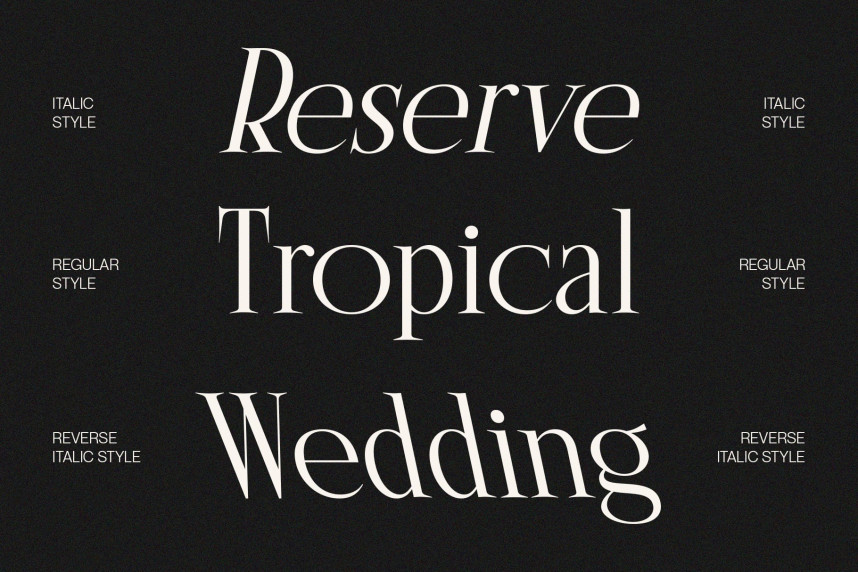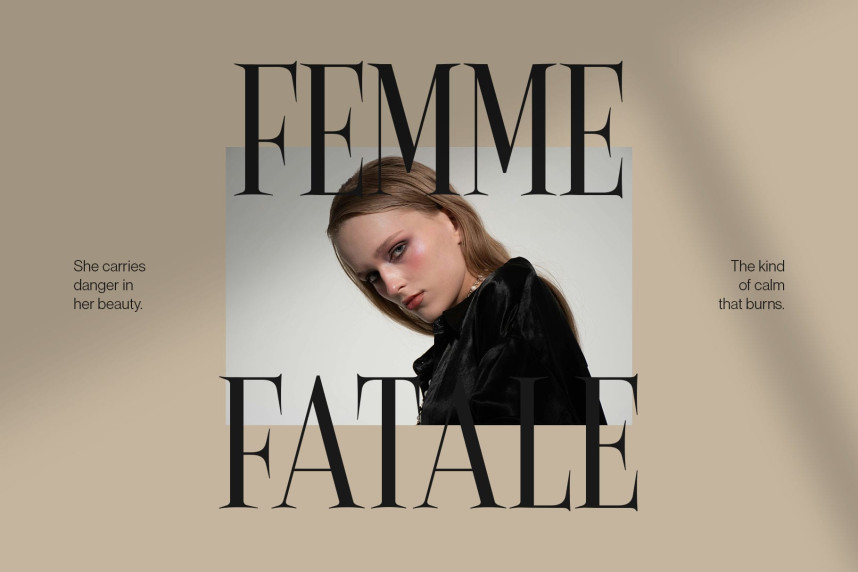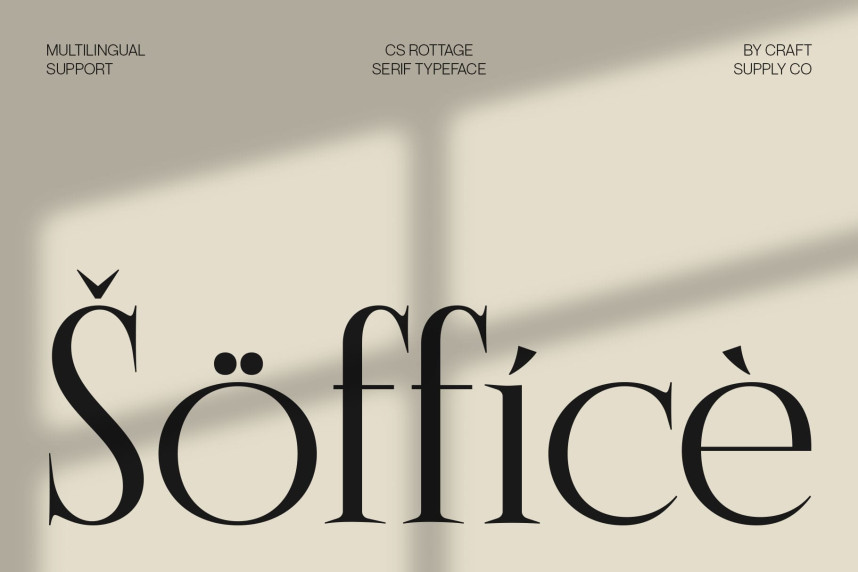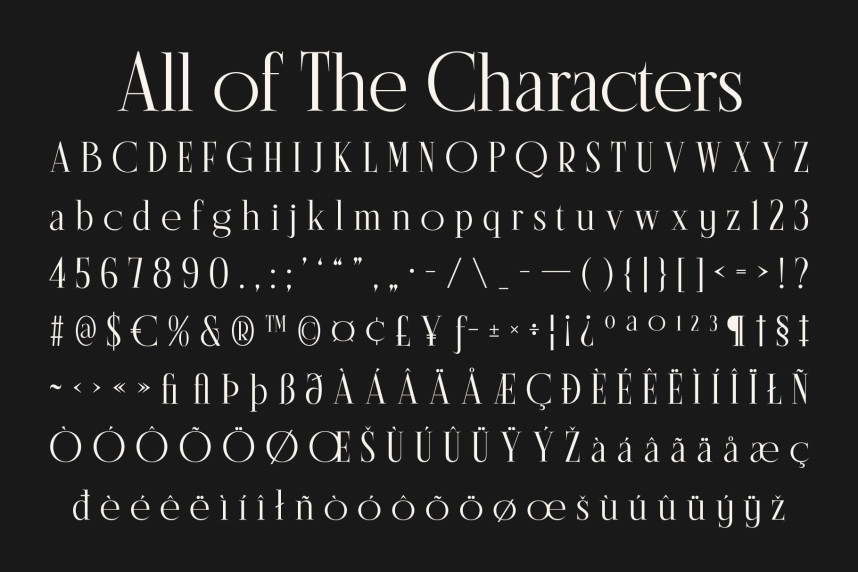
CS Rottage Font
CS Rottage Font – Classic Sophistication with Modern Simplicity Timeless Serif with Refined Beauty. This is a classic serif font that blends traditional elegance with contemporary clarity. Its clean, sleek shapes and balanced proportions create a sophisticated visual rhythm, ideal for designers who appreciate subtle luxury and polished aesthetics. Every curve and serif detail contributes to an effortlessly beautiful composition that feels both timeless and modern.